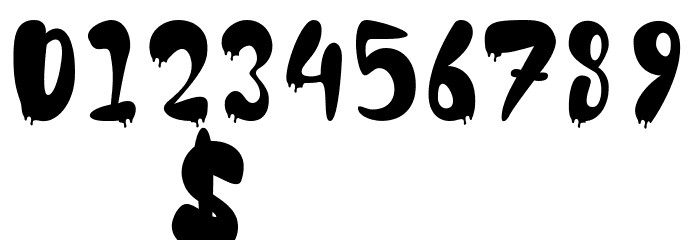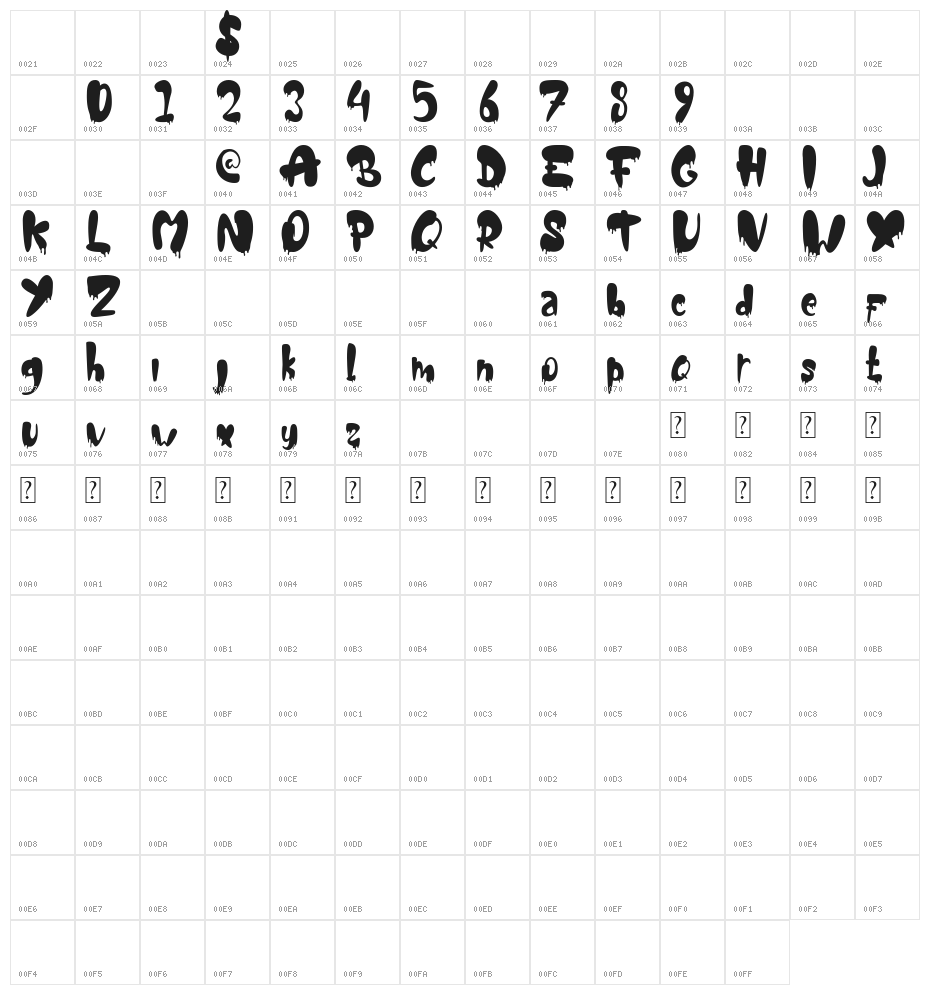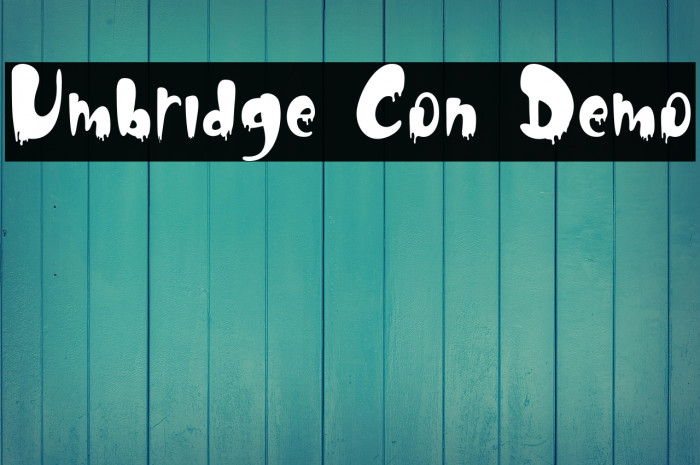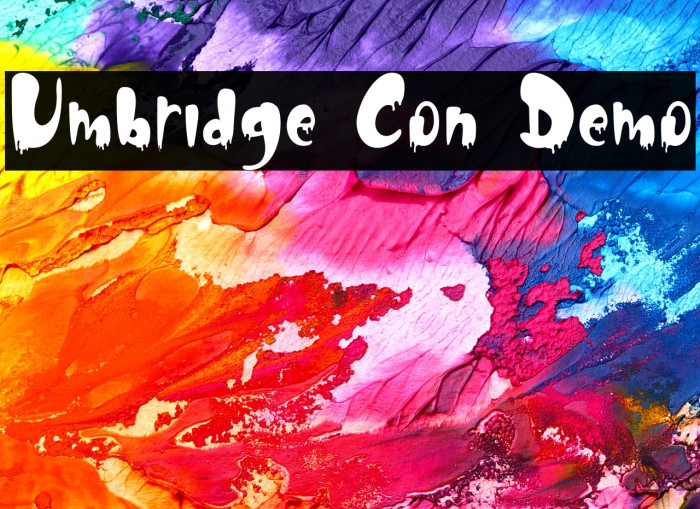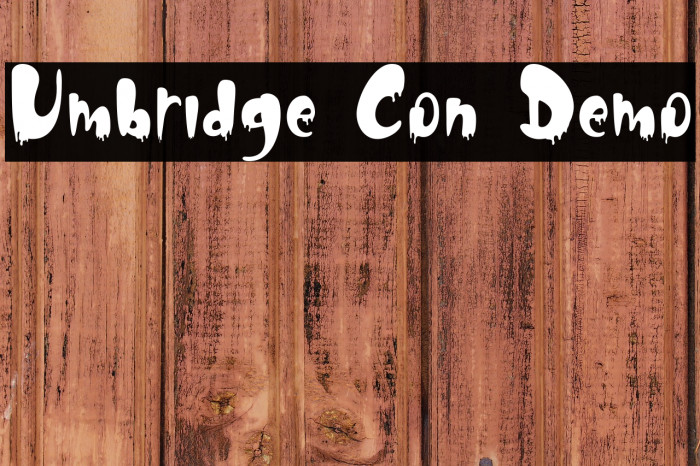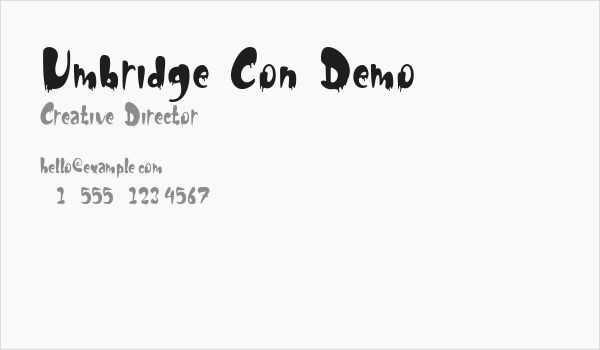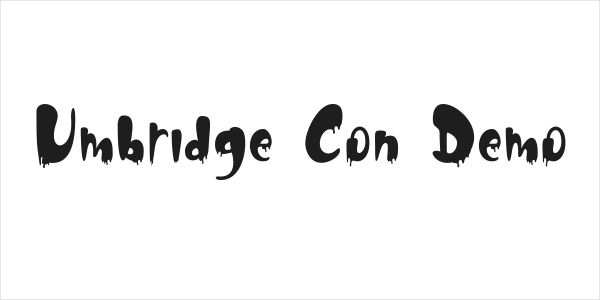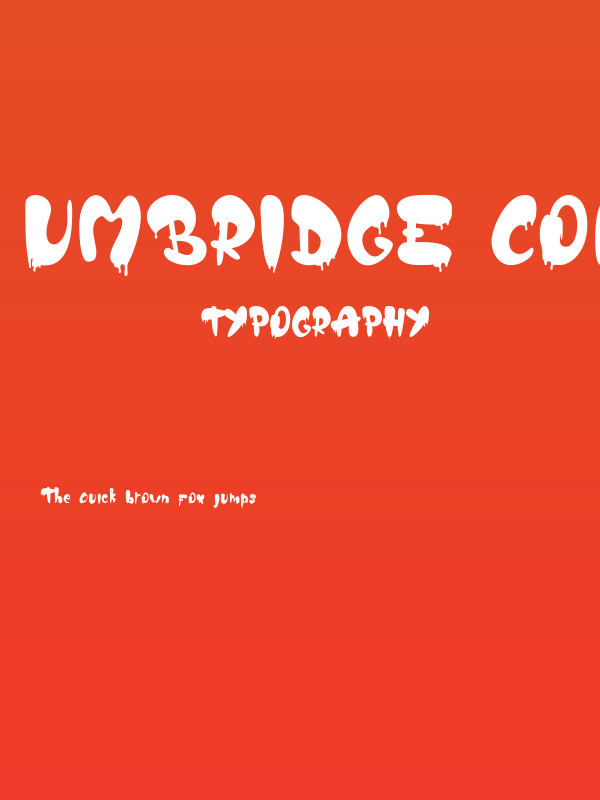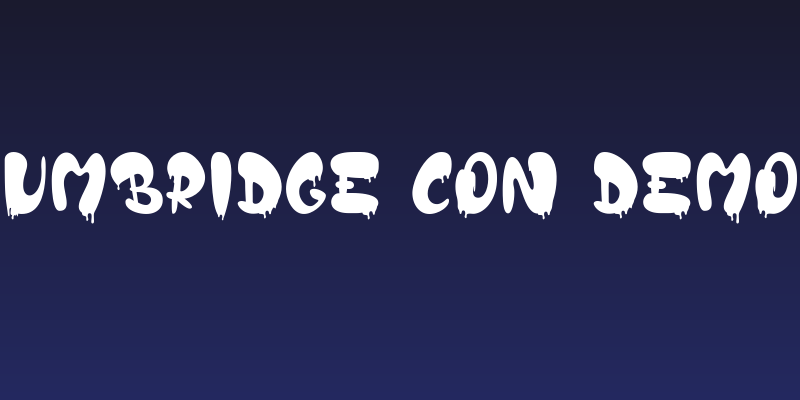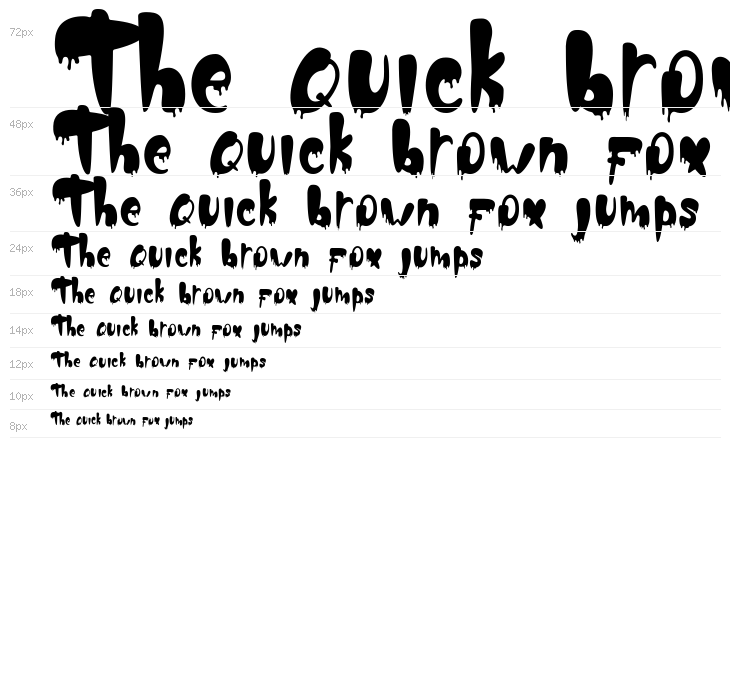
Umbridge Con Demo Font
Umbridge Con Demo Description
This font features a bold and playful design with a dripping effect that gives it a unique, slightly eerie appearance. The characters are rounded and thick, with a consistent flow that mimics the look of melting or dripping paint. This style is particularly eye-catching and can add a dramatic flair to any design. The uppercase and lowercase letters maintain a cohesive look, while the numbers and special characters follow the same dripping motif, ensuring uniformity across all text elements.
| Use Case | Headlines, Posters, Logos |
| Proposed Projects | Ideal for Halloween-themed designs, horror movie posters, spooky event invitations, or any project needing a dramatic and playful touch. |